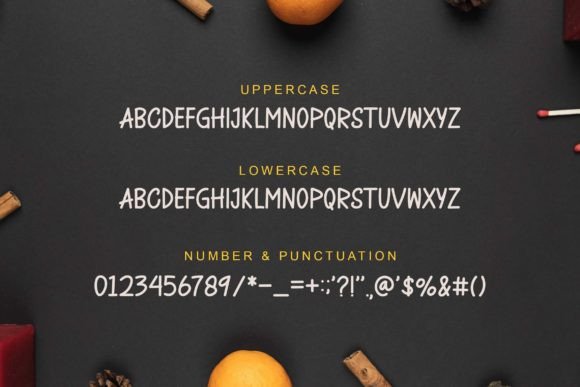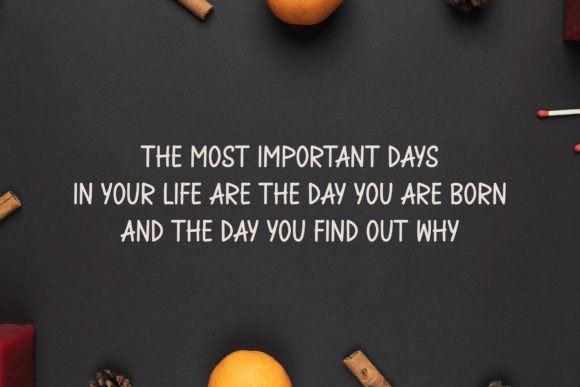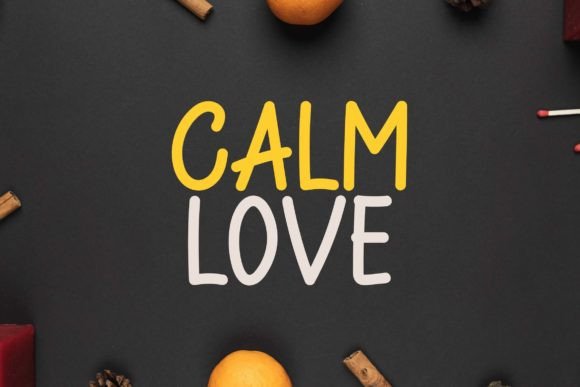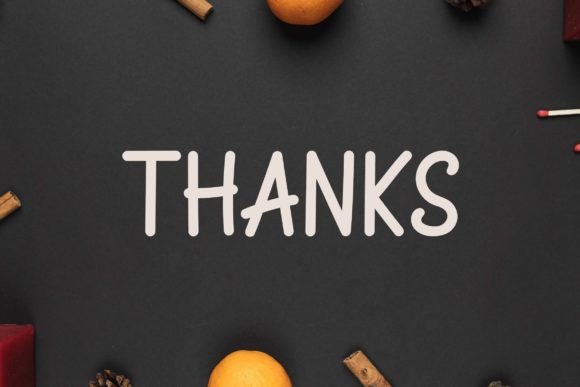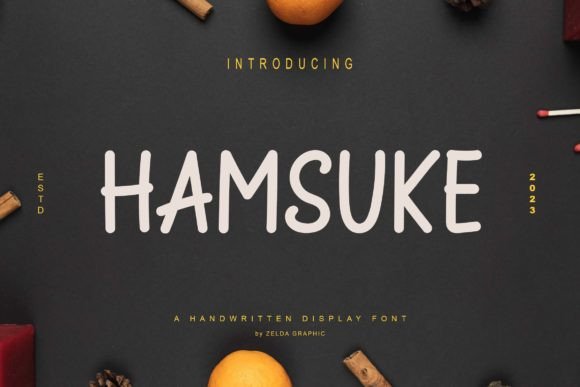
Hamsuke Font: Elevate Your Designs with a Modern Handwriting Style
In the world of typography, a good font can make all the difference in the success of a design project. Whether you’re a seasoned designer or a crafty DIY enthusiast, finding the right font can be a daunting task. That’s where Hamsuke Font comes in – a modern and awesome handwriting font with a natural style that’s perfect for a wide range of design applications.
What is Hamsuke Font?
Hamsuke Font is a beautifully crafted handwriting font that’s designed to add a personal touch to your designs. With its natural and fluid strokes, Hamsuke Font is perfect for creating a warm and inviting atmosphere in your designs. Whether you’re looking to create a signature, logo, branding materials, invitations, or blog headlines, Hamsuke Font is an excellent choice.
Key Features of Hamsuke Font
- Modern and Awesome Design: Hamsuke Font boasts a modern and fresh design that’s sure to capture the attention of your audience.
- Natural Style: The font’s natural style makes it perfect for designs that require a personal touch.
- Versatile: Hamsuke Font is suitable for a wide range of design applications, including signatures, logos, branding, invitations, blog headlines, and more.
- Easily Readable: The font is designed to be easily readable, making it perfect for body text and headlines.
Uses of Hamsuke Font
Hamsuke Font is an incredibly versatile font that can be used in a variety of design applications. Here are some ideas to get you started:
- Signature: Create a unique and personalized signature with Hamsuke Font.
- Logo: Design a stunning logo for your brand or business using Hamsuke Font.
- Branding: Use Hamsuke Font to create a consistent brand identity across all your marketing materials.
- Invitation: Create beautiful and elegant invitations for special occasions, such as weddings, birthdays, and more.
- Blog Headline: Use Hamsuke Font to create eye-catching blog headlines that grab the attention of your readers.
Why Choose Hamsuke Font?
With so many fonts available, why choose Hamsuke Font? Here are just a few reasons:
- Unique Design: Hamsuke Font has a unique and distinctive design that sets it apart from other fonts.
- High-Quality: The font is designed to be high-quality and easily readable, making it perfect for both print and digital designs.
Tips for Using Hamsuke Font
Here are a few tips for getting the most out of Hamsuke Font:
- Use it Sparingly: Use Hamsuke Font sparingly to add emphasis and create visual interest in your designs.
- Pair it with Other Fonts: Pair Hamsuke Font with other fonts to create a unique and visually appealing design.
- Experiment with Colors: Experiment with different colors to find the perfect combination that works with Hamsuke Font.
In conclusion, Hamsuke Font is a modern and awesome handwriting font with a natural style that’s perfect for a wide range of design applications. With its unique design, high-quality, and ease of use, Hamsuke Font is an excellent choice for designers and crafters looking to elevate their designs. Whether you’re creating a signature, logo, branding materials, invitations, or blog headlines, Hamsuke Font is sure to impress.